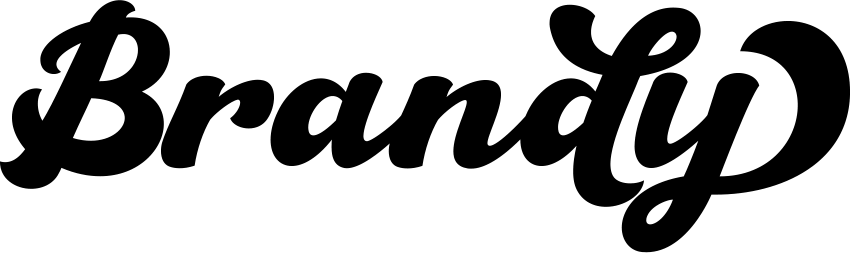
Brandy Font
Thinking of displaying the typography you are preparing to create with a retro style, funky and fun, groovy font?! Then you will be interested in what we have in store for you! Brandy offers bold irregular characters, which allow you to achieve your unique typography, that will also have a cursive style with swash tails.
A full set of letterforms is included, which are mixed case A to Z letters, numbers, and punctuations. This 90s T-shirt font is best for games, stickers, movies, and more.